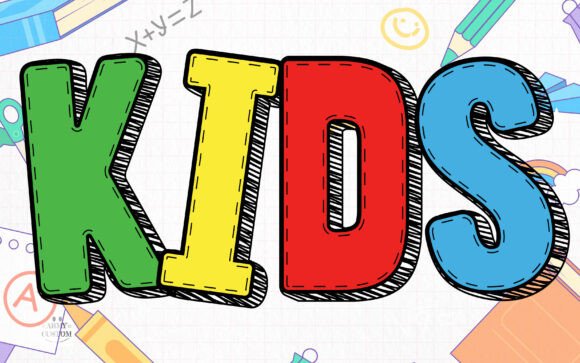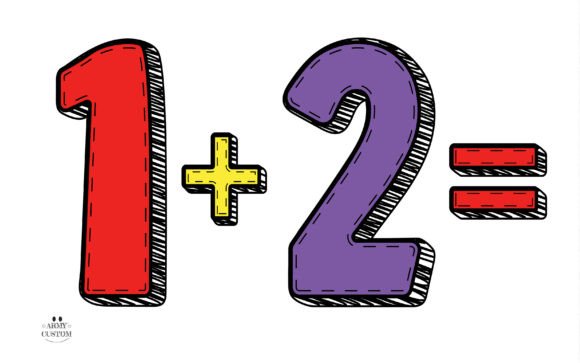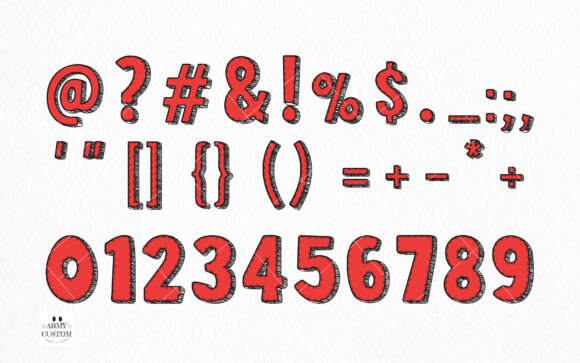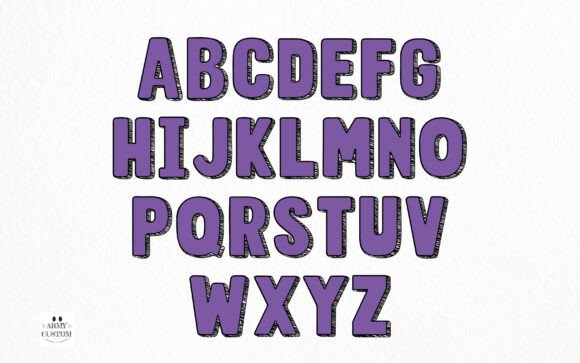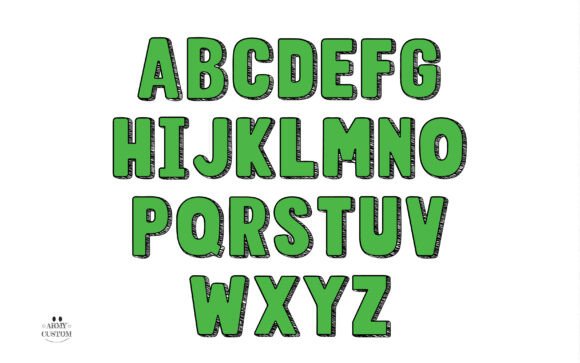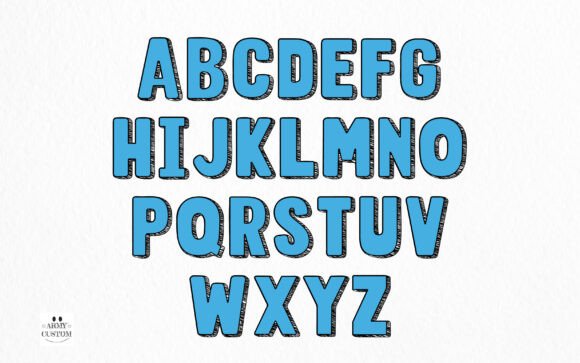
Introduction to Back to School 3d Font
Welcome to the vibrant world of Back to School 3D – a delightful and whimsical color font.
It brings an explosion of joy and creativity, making it the ultimate choice for school-related endeavors This font embraces the spirited charm of youth, evoking a sense of nostalgia and breathing life into your academic themes.
Key Features of Back to School 3d Font
Why Choose Back to School 3d Font?